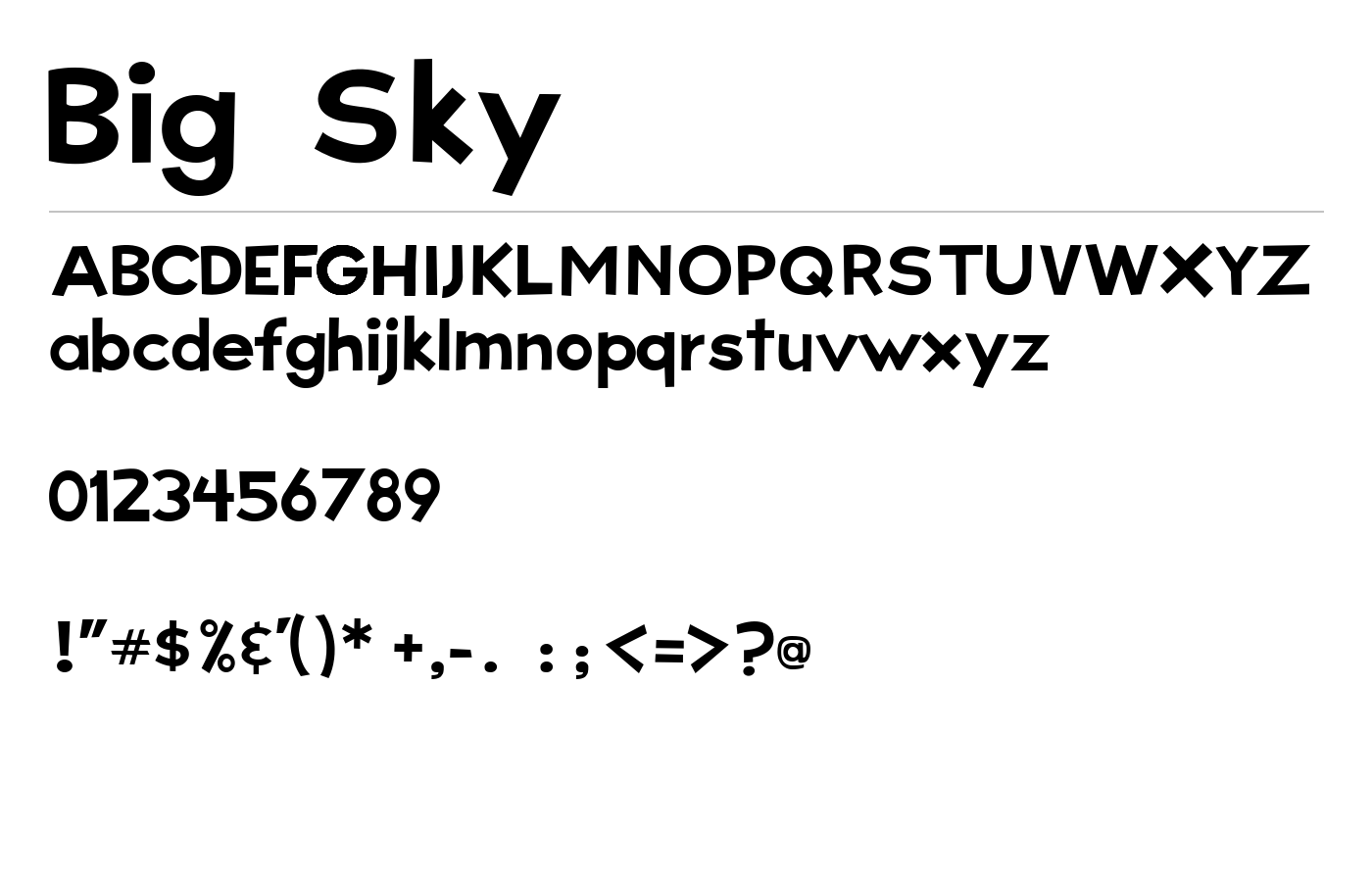
Big Sky is a bold sans serif font with a friendly and playful character, featuring slightly quirky letter shapes and a strong, solid presence. Its geometric style and high x-height make it highly readable, perfect for eye-catching headlines, logos, and contemporary branding that wants to convey confidence with a touch of fun. This font works well in modern designs that aim to be approachable and memorable.
Big Sky Font
About Big Sky Font
| Font family | Big Sky Font |
| Designer | Kristian Larsen |